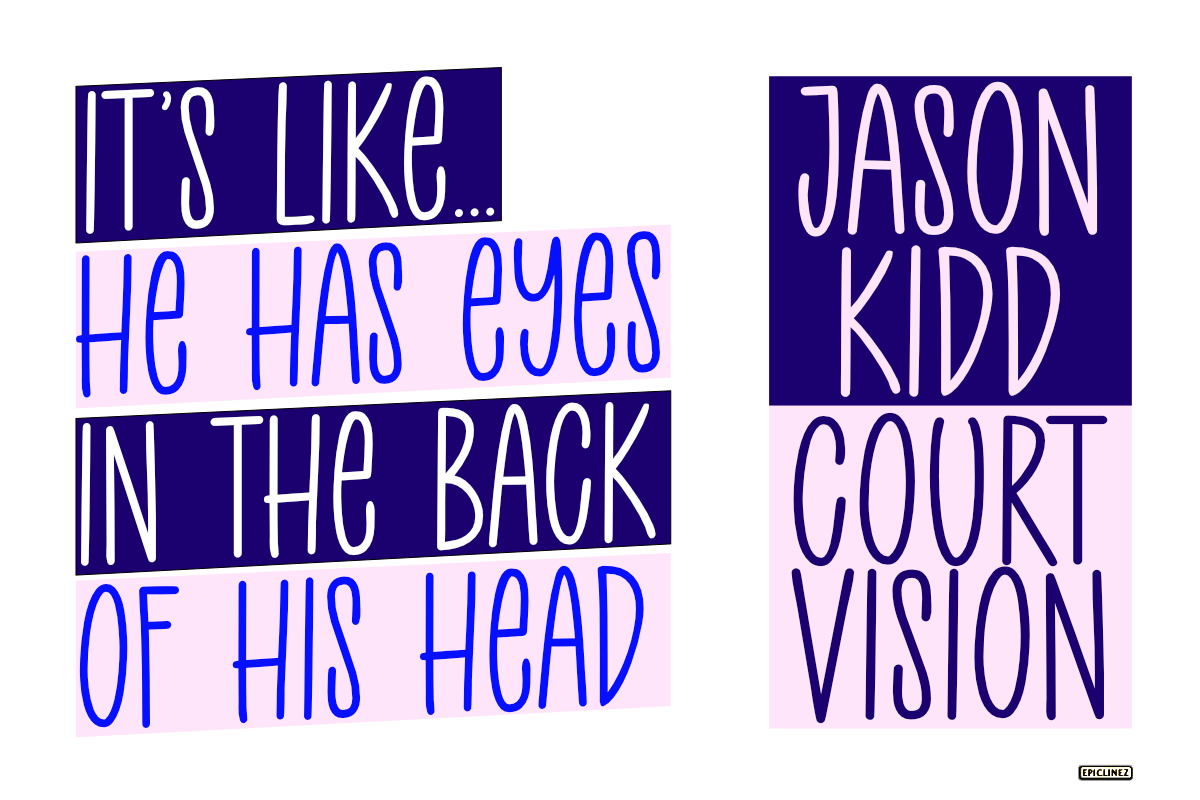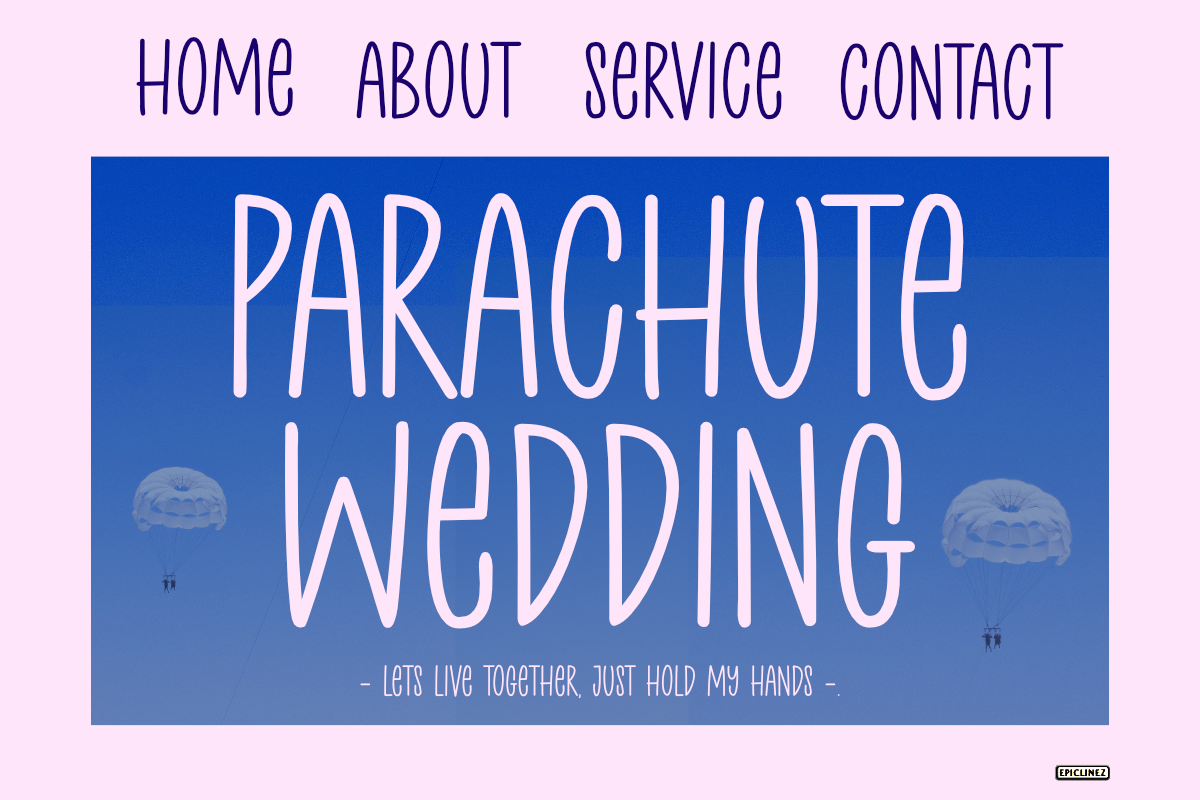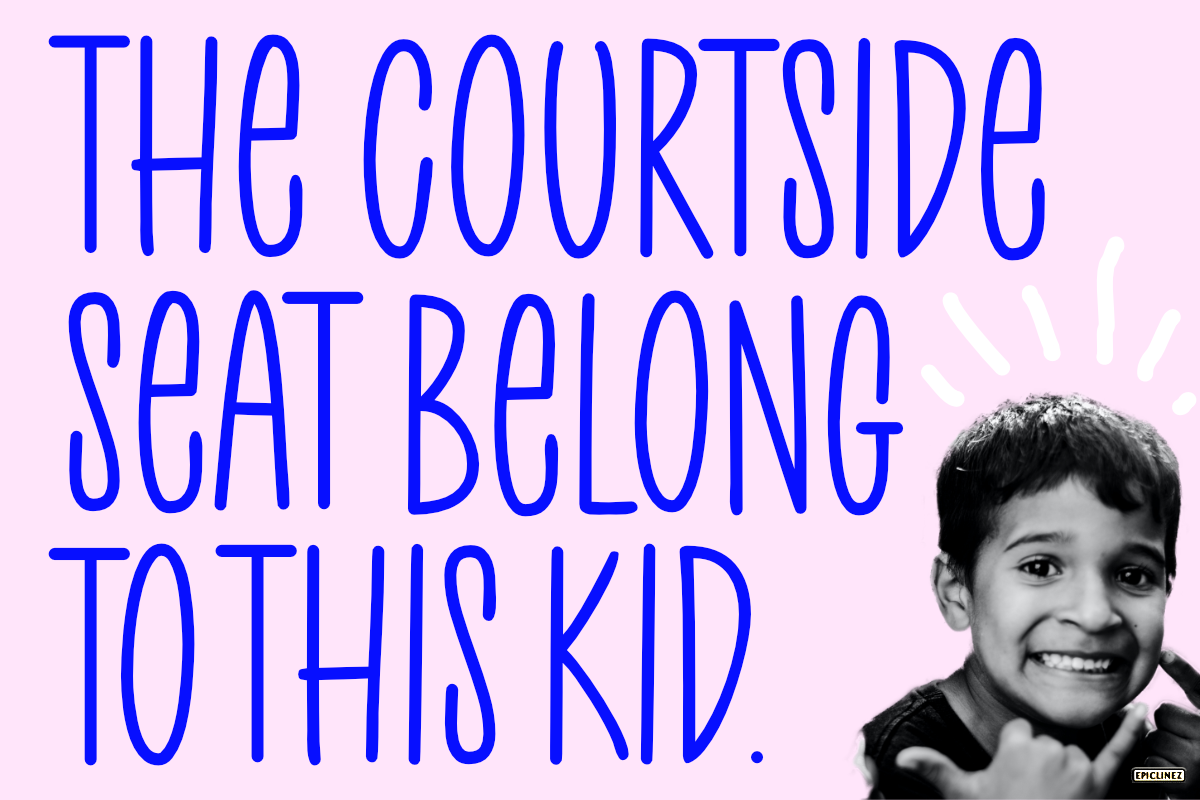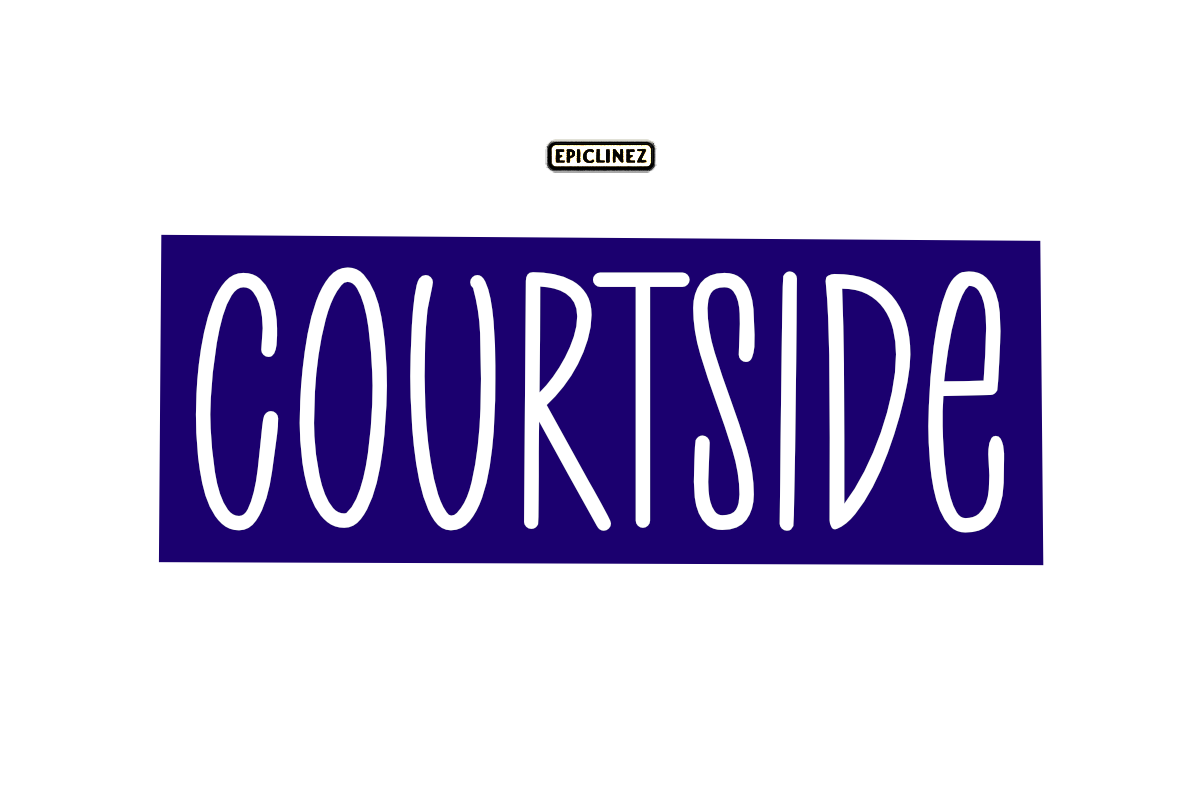
Courtside | Handwritten Typeface
Courtside is an organic handwritten font. This all caps font is easy to read and it has a playful feel to it at the same time. Get inspired by its simplistic charm and use it to brighten up any creative projects.
- Basic Latin A-Z, a-z, numbers, symbols, and punctuationsC
- Courtside is supporting 16 Languages: Afrikaans Albanian Catalan Danish Dutch English Estonian Finnish French German Italian Norwegian Portuguese Spanish Swedish Zulu.